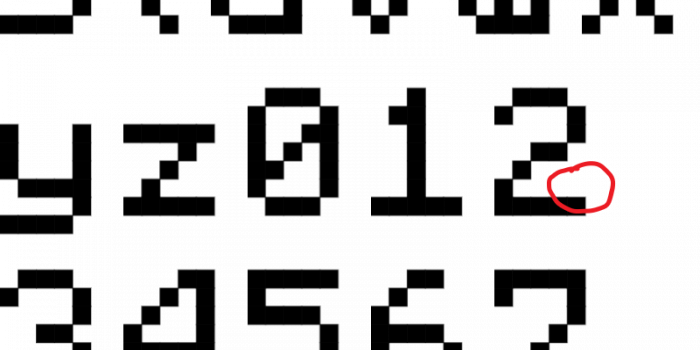
The most complete Minecraft font.
This is beautiful. One problem I encountered is the letter å has a pixel missing. Great work!
mojang Russian edition
This is awesome, but not perfect. the error i saw is that 2 is missing a pixel.